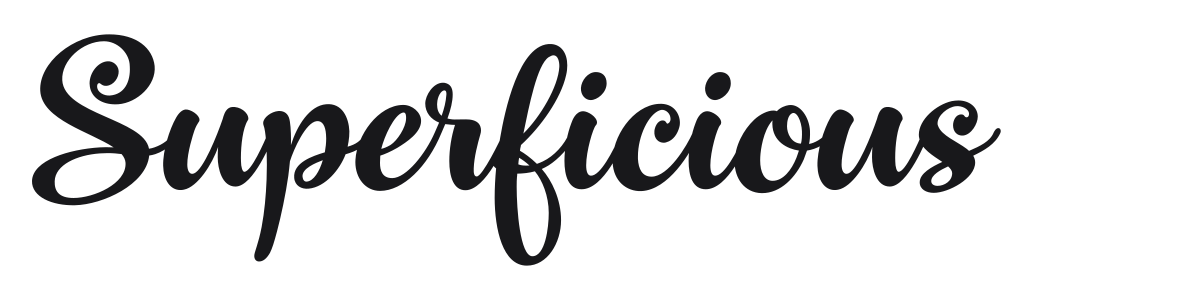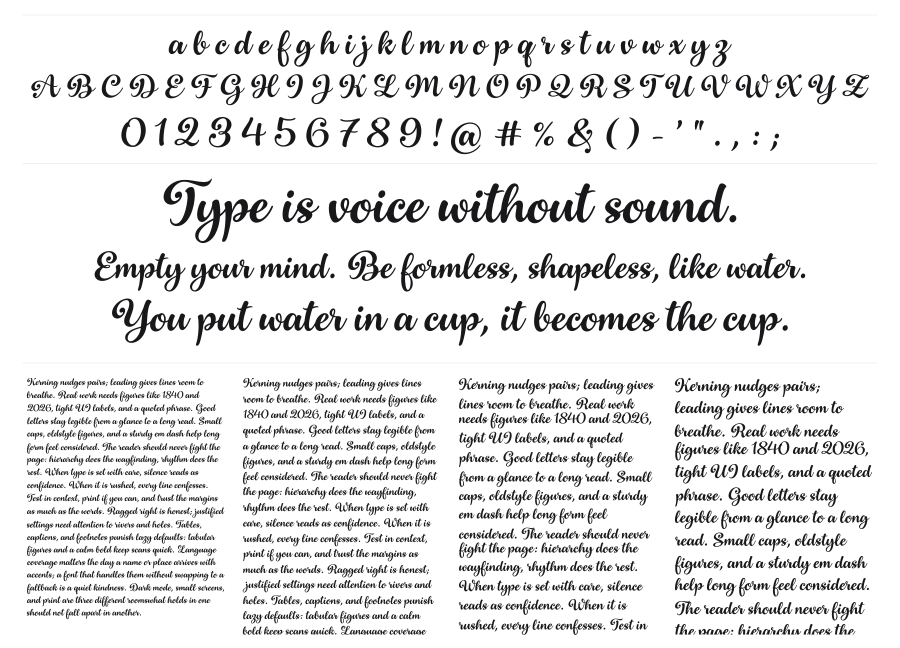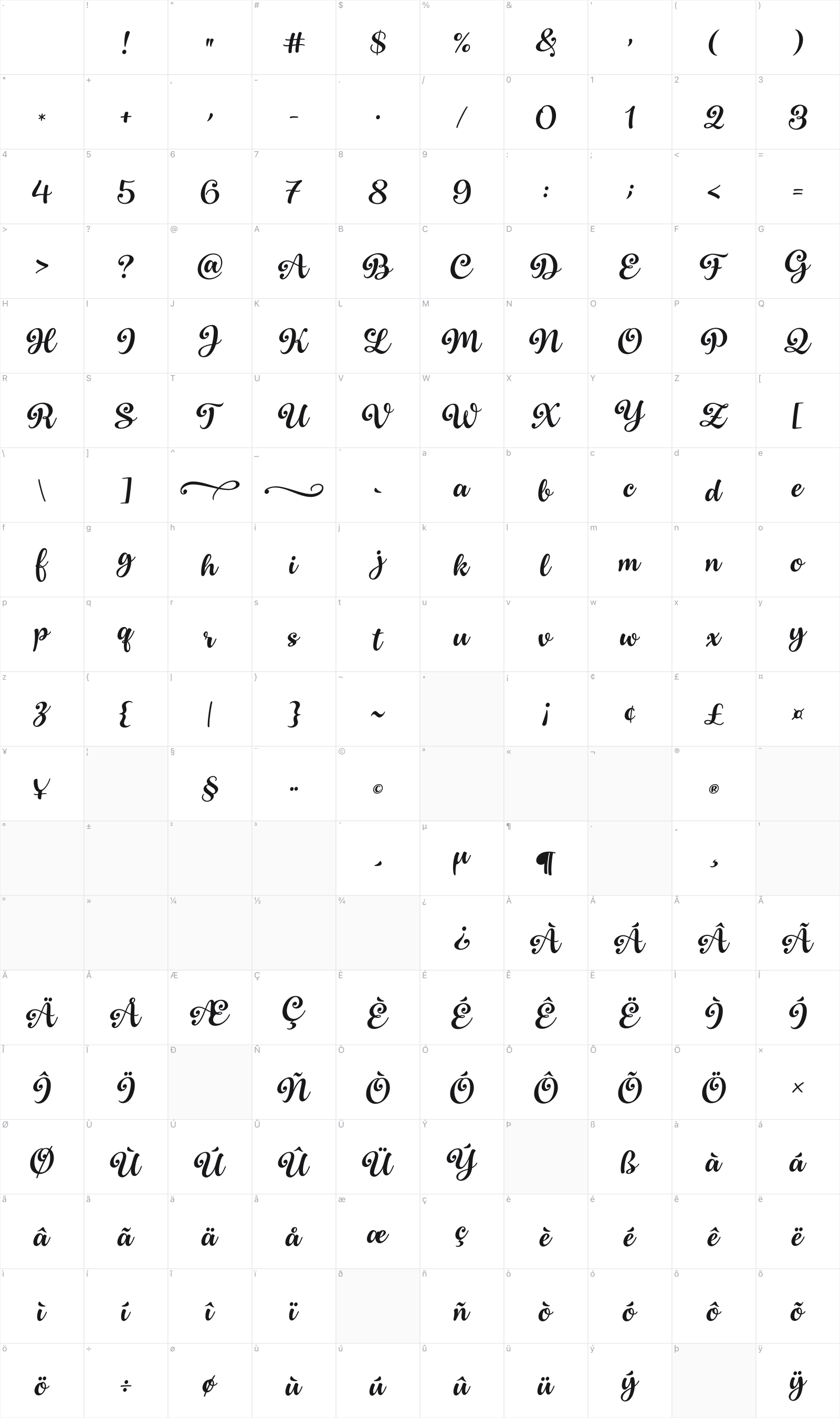
Superficious
Superficious is a bold, flowing casual script with confident strokes and lively character connections. The bouncy rhythm and moderate stroke contrast give it an approachable, handcrafted warmth that reads well at large sizes. A natural choice for branding, packaging, and social media graphics that want personality without pretension.